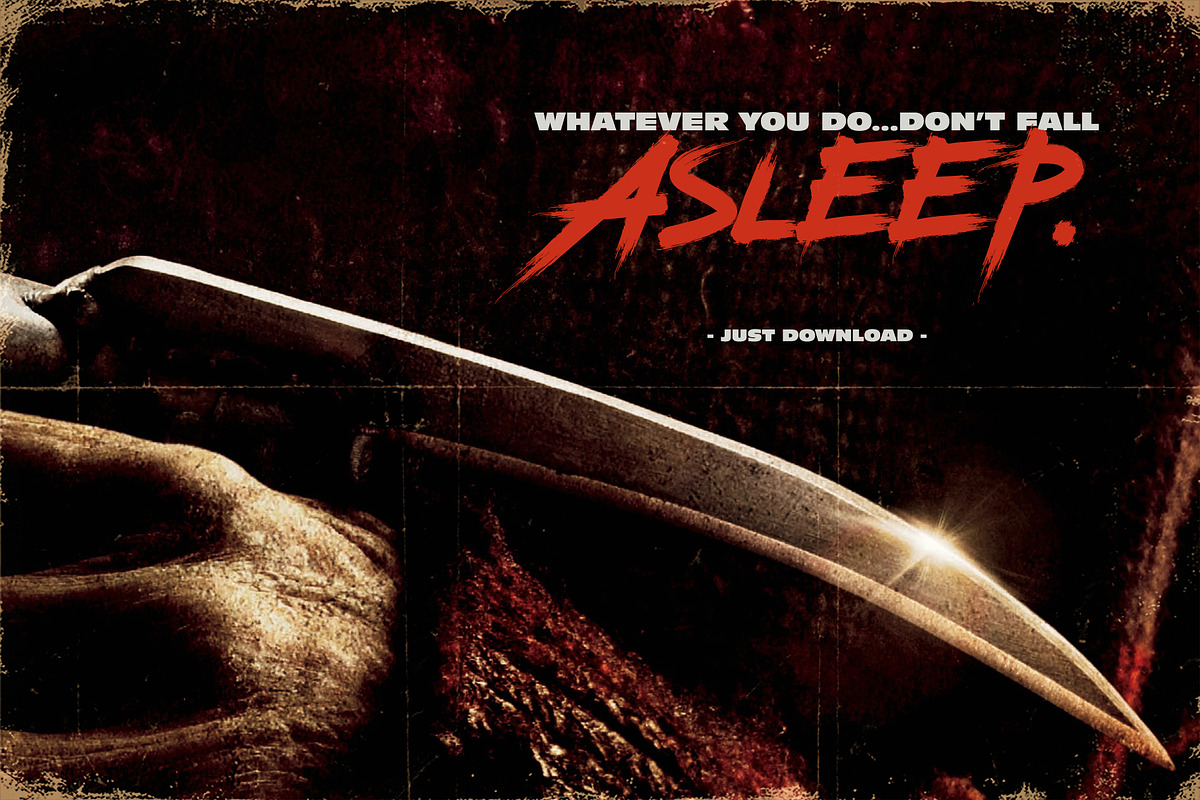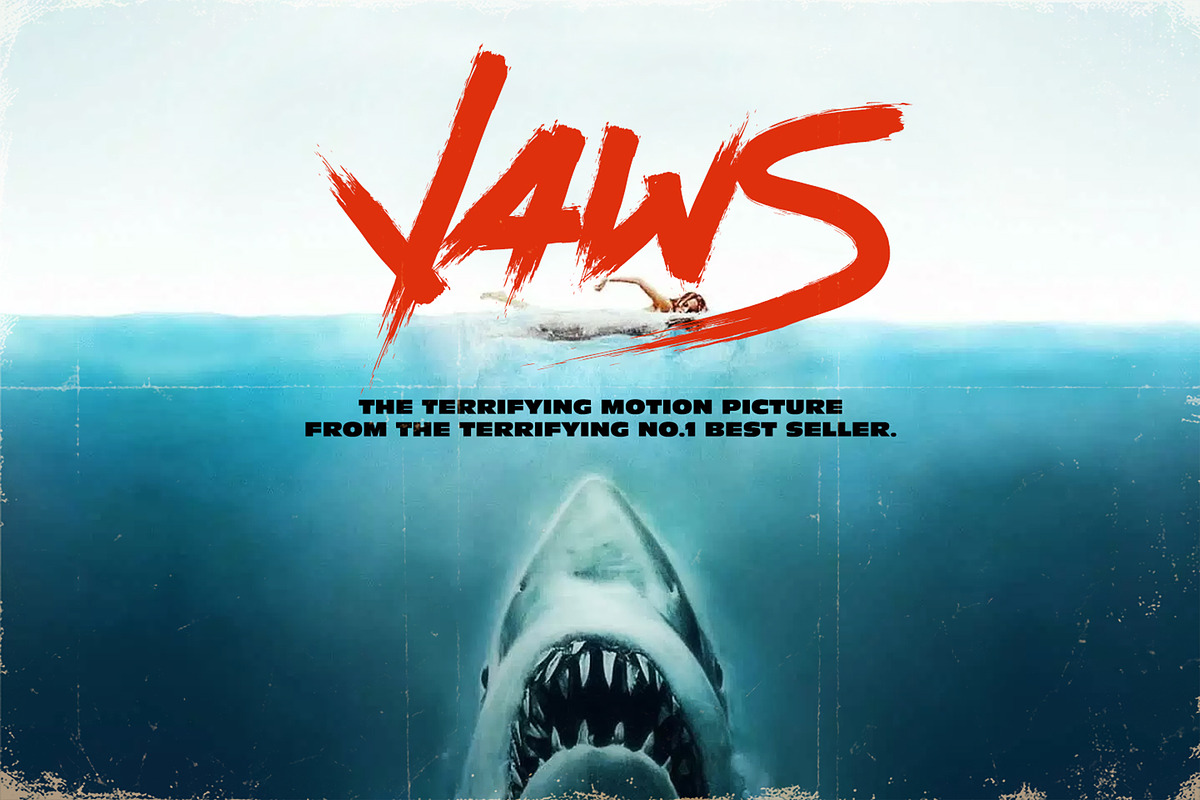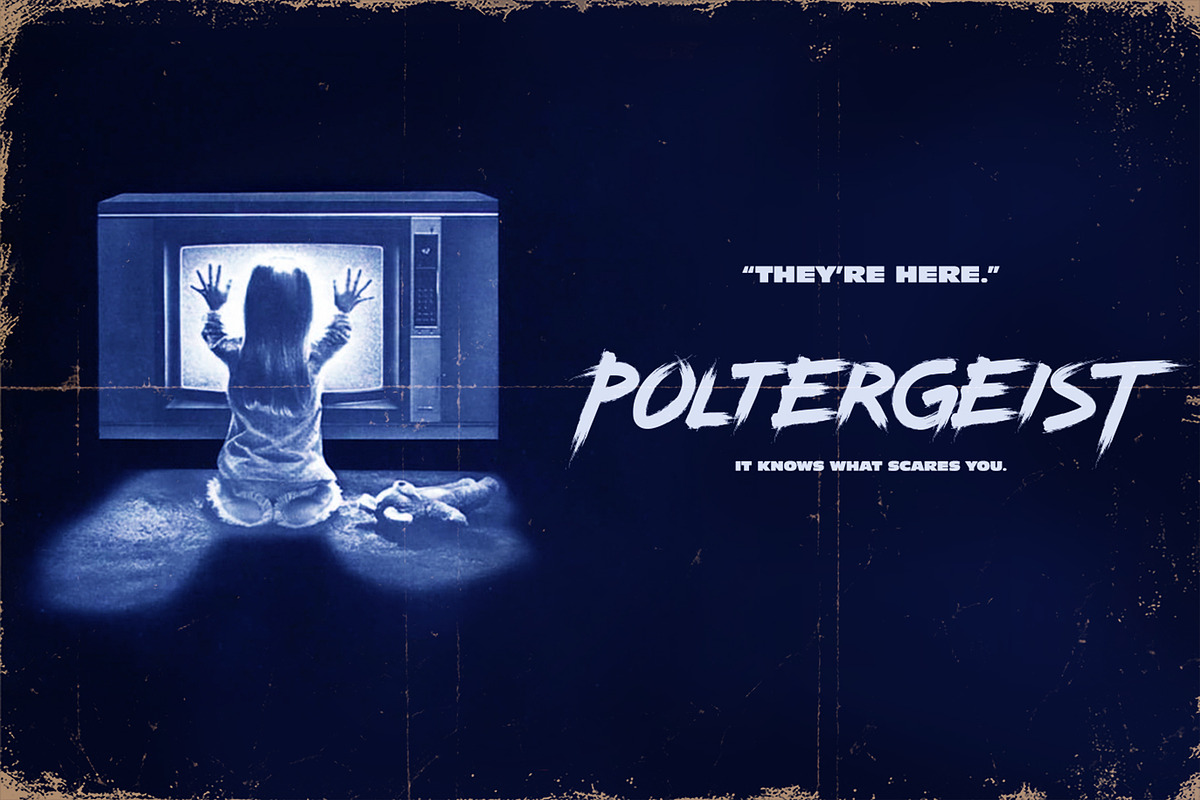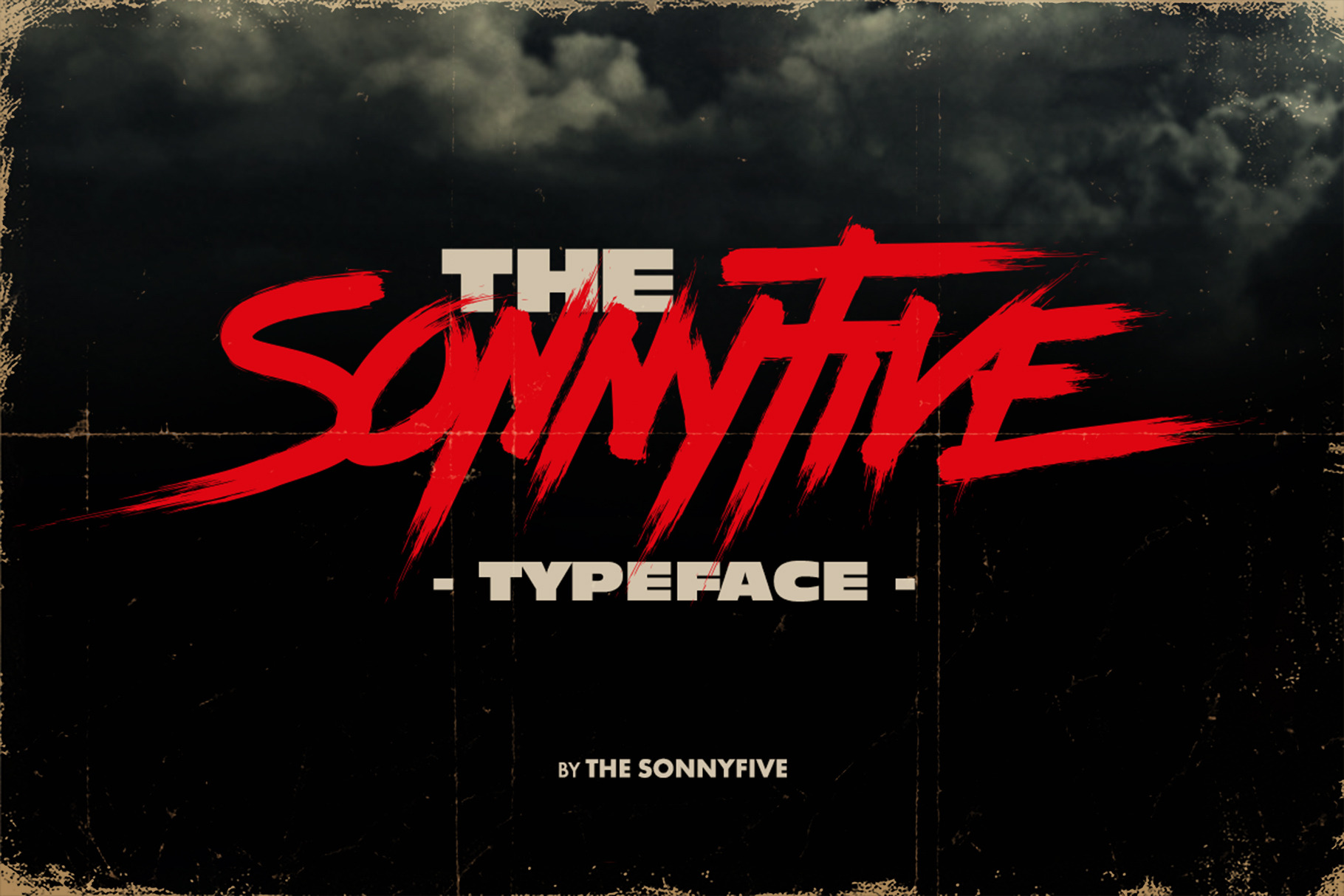
THE SONNYFIVE typeface
The Sonnyfive typeface
This is a brush font from the eighties. I specifically made it for horror movie posters, but it can be used for anything.
- Punctuations
- Hungarian letters
Here are some examples: John Wick, Kong - Skull Island, Logan, Gremlins, Poltergeist, Jaws.